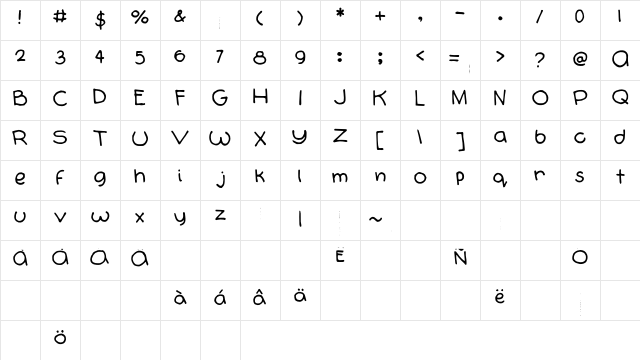
Orbicularis Medium Free Font
Orbicularis Medium
Design Context for Orbicularis
Orbicularis is a composed and adaptable typeface that performs quietly and consistently across a wide range of design contexts.
Pro Tip: Use Orbicularis in both headline and body roles to test its range before committing to a single application.